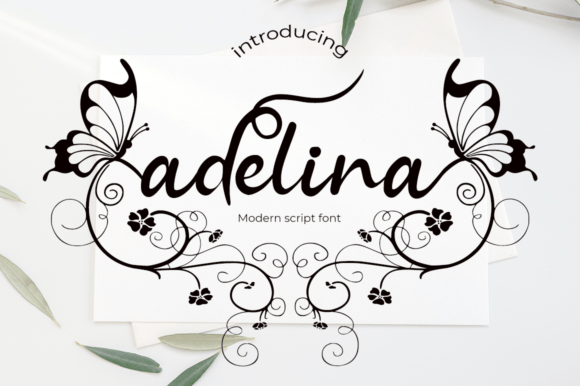
Unlock the Beauty of Handwritten Letters with Adelina Font
As designers, we’ve all been there – staring at a blank page, trying to find the perfect font to convey our message. But what if you could transport your audience to a world of elegance and charm, where every letter is a work of art? This is exactly what the Adelina Font achieves, with its stunning calligraphy design and beautiful swashes that add a touch of personality to any project.
Whether you’re creating a logo, product packaging, or wedding invitation, Adelina Font is the perfect tool to elevate your design. Its versatility and sophistication make it a valuable asset for designers, allowing them to express their creativity and connect with their audience on a deeper level. With Adelina Font, the possibilities are endless, and the results are truly breathtaking.
Adelina Font Key Features
- Font Family: Adelina Font
- Unique Characteristics: Elegant, sophisticated, and modern design with a touch of classic flair
Adelina Font Review
Overall, I think the Adelina font has some great qualities, but also some areas where it could improve. Let’s start with what works well: ✨ It has a beautiful, elegant feel that’s perfect for titles and headings. The subtle curves and rounded edges give it a sophisticated touch that’s hard to find in other fonts. ✨ It’s also highly legible, even at smaller font sizes, making it a great choice for body text. ✨ The font family is quite extensive, with many weights and styles to choose from, which is a major plus for designers who like to have options.
Now, let’s talk about some of the limitations: ⚠️ One of the main issues I have with the Adelina font is that it can feel a bit too ornate for some projects. While the elegant feel is great for some designs, it can be overwhelming for simpler or more modern projects. ⚠️ Additionally, the font’s weight and spacing can be inconsistent at times, which can make it difficult to achieve a uniform look across different elements.
Design Considerations
- Best for: Titles, headings, and projects that require a sophisticated, elegant feel.
- Not ideal for: Simpler projects, modern designs, or projects that require a more minimalist aesthetic.
Overall, I think the Adelina font is a solid choice for designers who are looking for a elegant, sophisticated font. While it may not be perfect for every project, it’s definitely worth considering for the right designs.
Getting the Most Out of Adelina Font
Here are some tips to get the most out of Adelina Font:
- Use Adelina Font for titles and headings to add a touch of elegance and sophistication.
- Pair Adelina Font with other fonts to create a unique and visually appealing design.
- Experiment with different font sizes and styles to find the perfect combination for your project.
Adelina Font is commonly used in:
- Use the Adelina Font for the title and headings.
- Pair it with a clean and simple font, such as Open Sans, for the body text.
- Combine Adelina Font with a watercolor effect to give it a whimsical feel.
- Use a pastel color palette to create a dreamy atmosphere.
- Use the Adelina Font for the title and headings.
- Pair it with a classic font, such as Garamond, for the body text.
- Combine Adelina Font with a gold or silver foil stamp to give it a luxurious feel.
- Use a rich color palette, such as navy blue and white, to create a classic and elegant look.